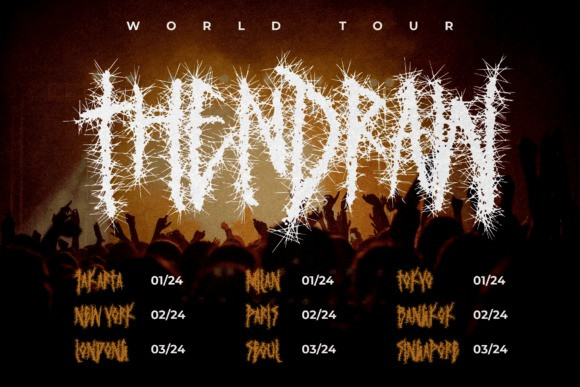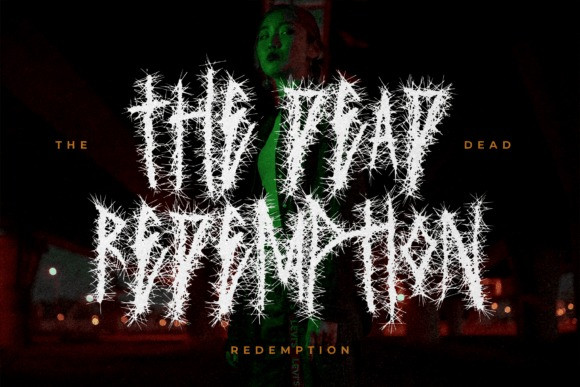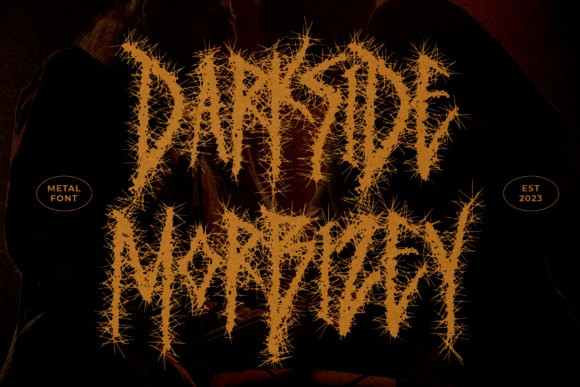
Darkside Morbizey Font
Darkside Morbizey Font is a metal display font, suitable for a variety of projects such as logos, branding, homeware designs, product packaging, mugs, quotes, posters, shopping bags, t-shirts, book covers, name card, invitation cards, greeting cards, label, photography, watermark, special events, and all your other lovely projects that need a beautiful script taste.